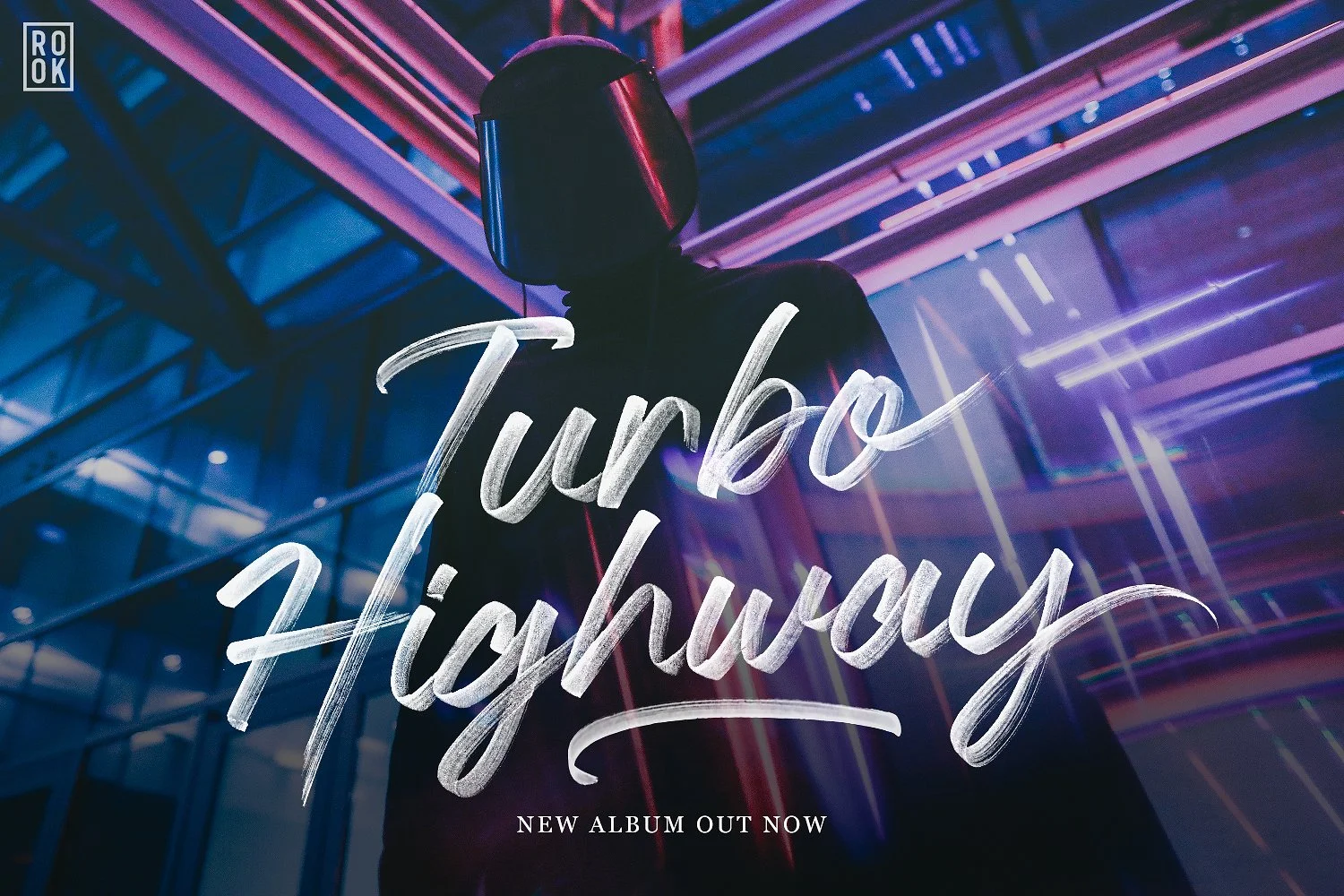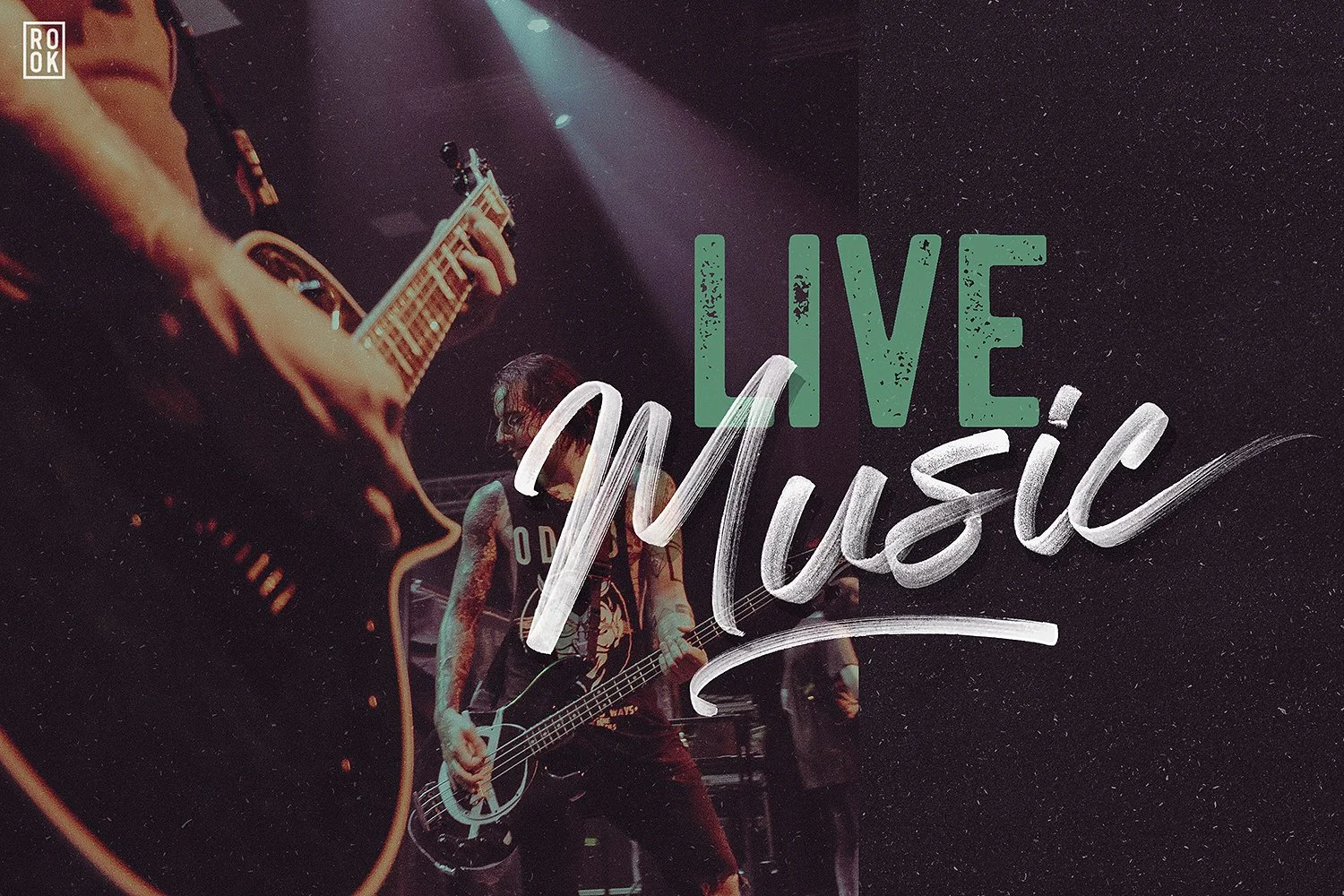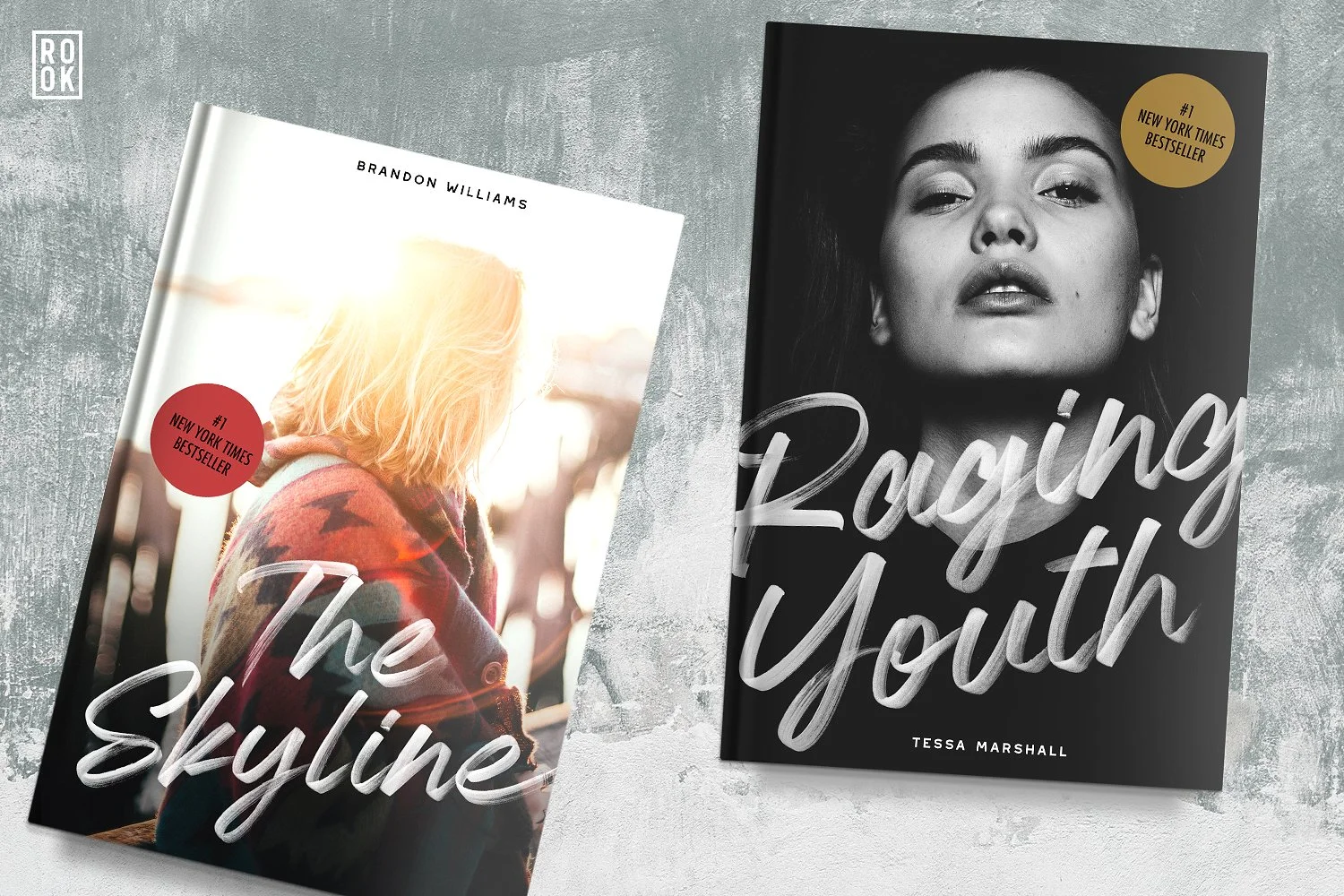
Almonte SVG Font
Almonte goes above and beyond a typical font. Using OpenType-SVG technology, this font preserves all the high definition detail of the original handwritten letters. It truly looks realistic, and the difference compared to regular vector fonts is staggering. In an instant, you can produce eye catching text that looks like it was meticulously drawn by a professional hand letterer. I spent several months perfecting this font to get everything just right.
Swash Brushes - We’ve also included a bunch of underlines to help spice up your designs.